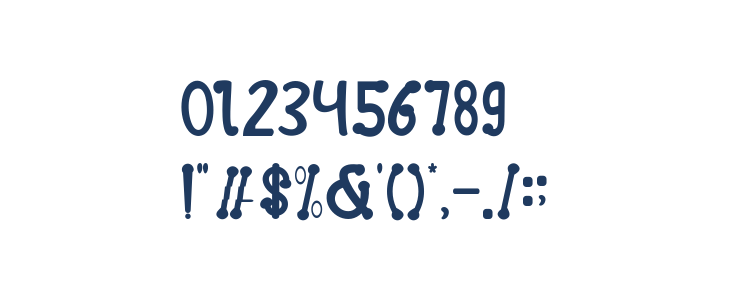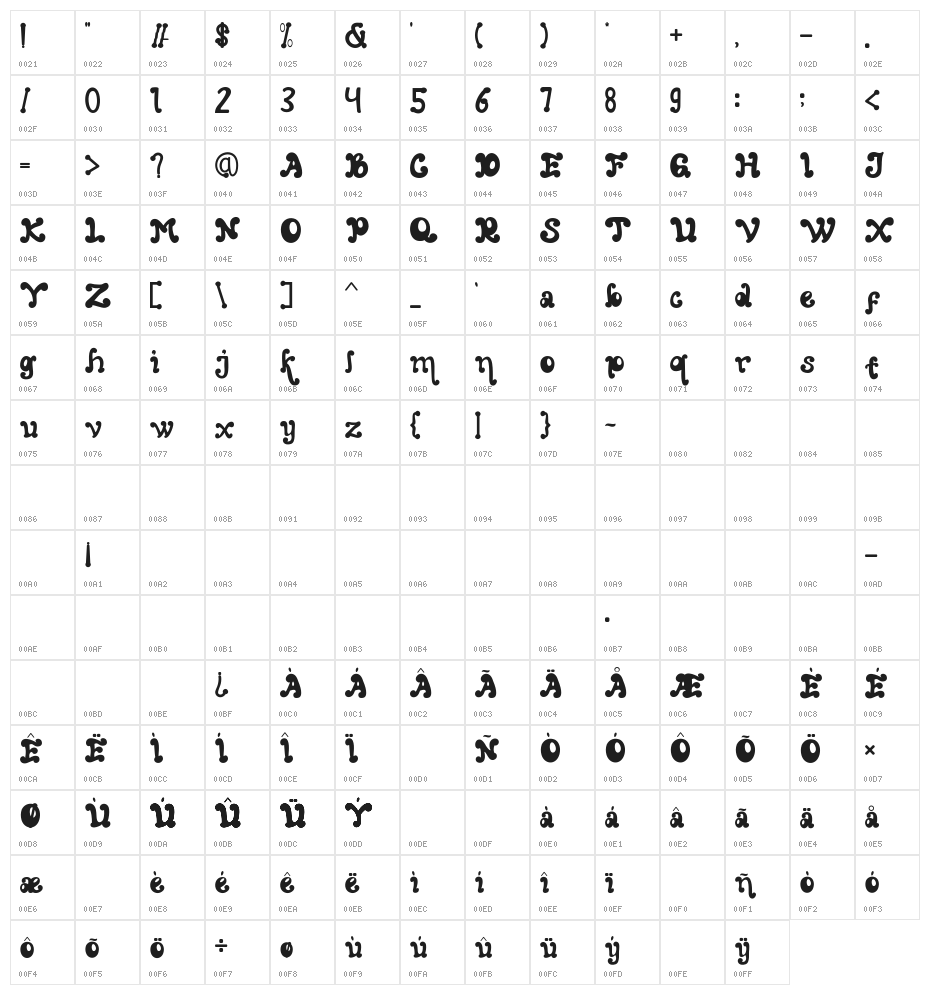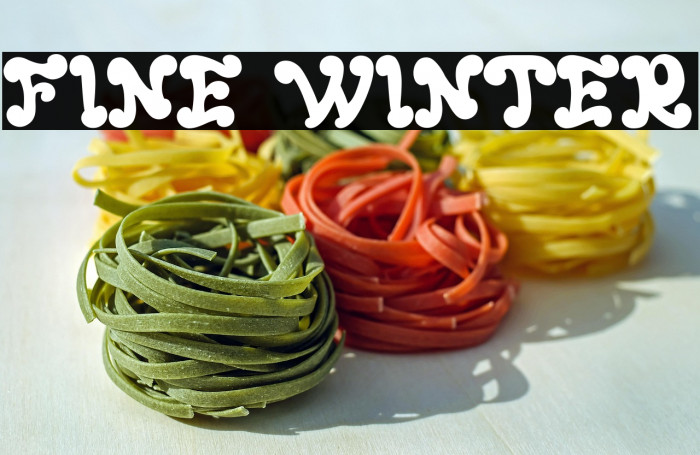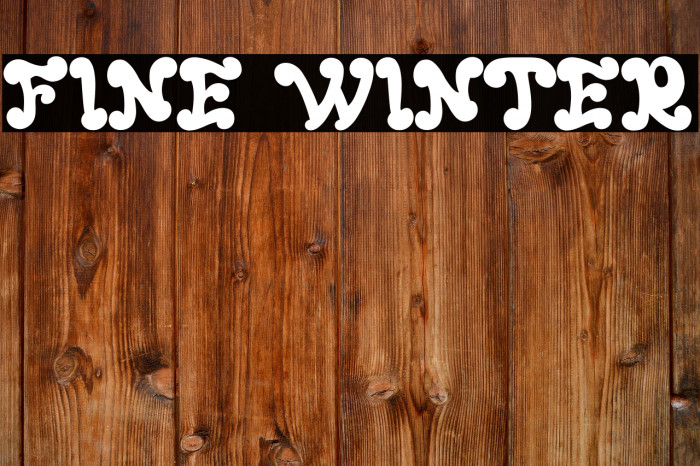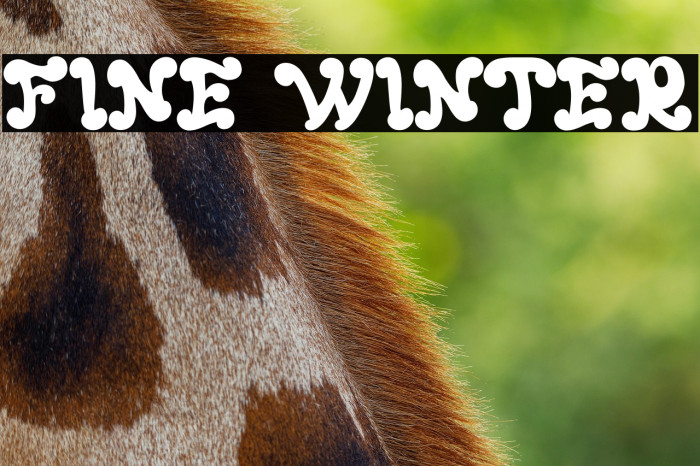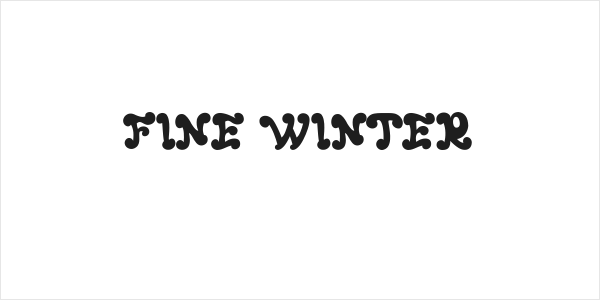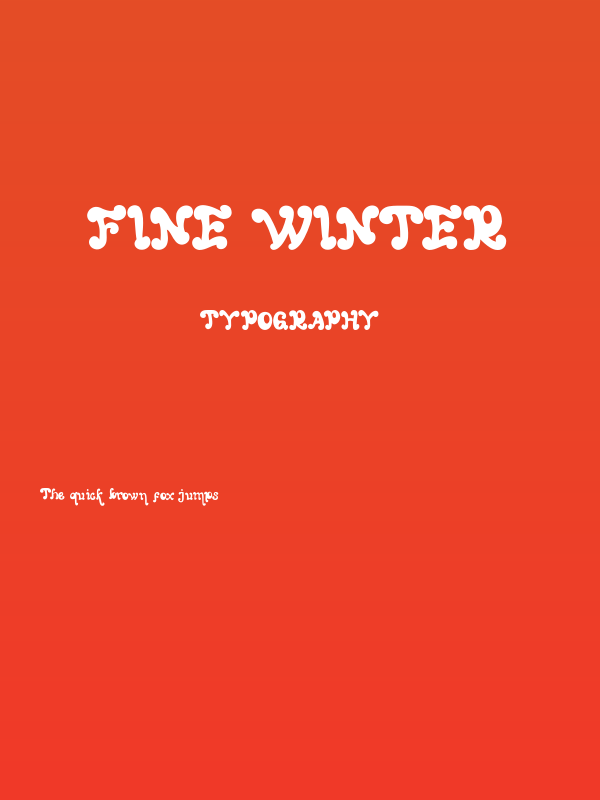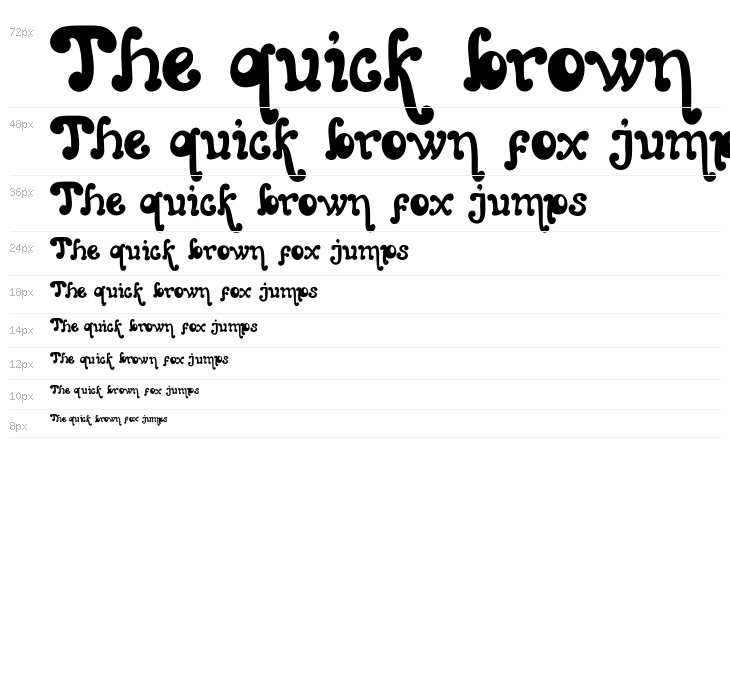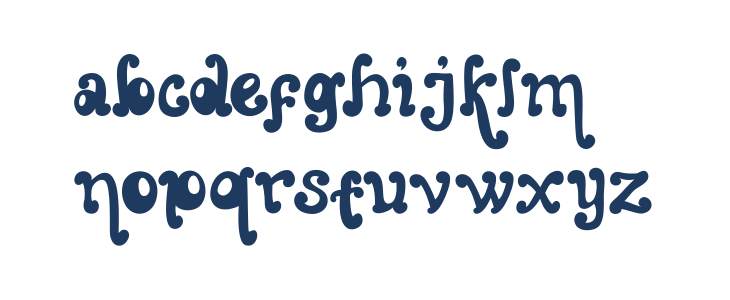
FINE WINTER Font
FINE WINTER Description
This font features a playful and whimsical design with rounded, bulbous terminals and a bold presence. The characters exhibit a unique, almost cartoonish style with exaggerated curves and loops, giving it a lively and dynamic appearance. The uppercase letters are bold and prominent, while the lowercase letters maintain a consistent style with slightly elongated ascenders and descenders. The numbers and special characters follow the same playful theme, making the font suitable for creative and informal applications. Its distinct style makes it stand out, capturing attention with its bold and decorative flair.